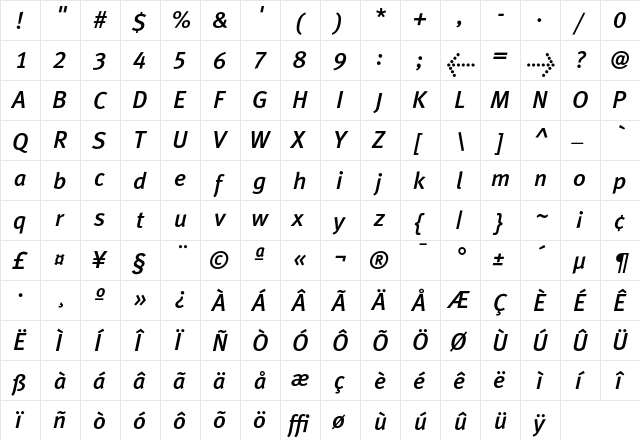
MetaPlusLining MediumItalic
Design Context for MetaPlusLining Typeface
MetaPlusLining offers clean, dependable letterforms without strong stylistic allegiance, making it a practical choice for designers who need flexibility. Its italic angle brings a sense of urgency and motion to the letterforms.
Pro Tip: Use MetaPlusLining for emphasis, pull quotes, and subheadings where its slanted energy can add rhythm to the layout.